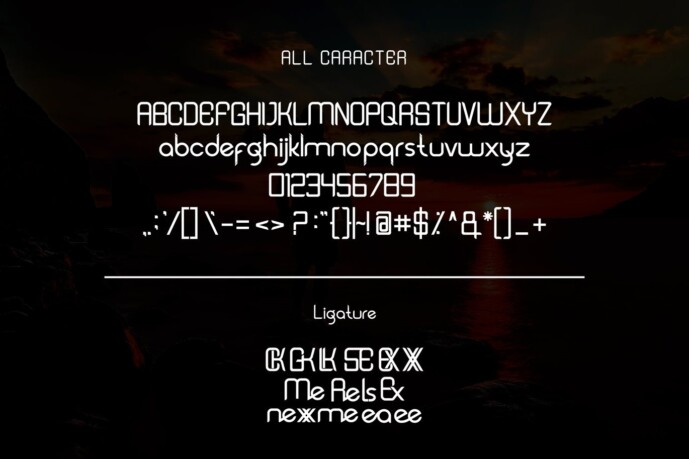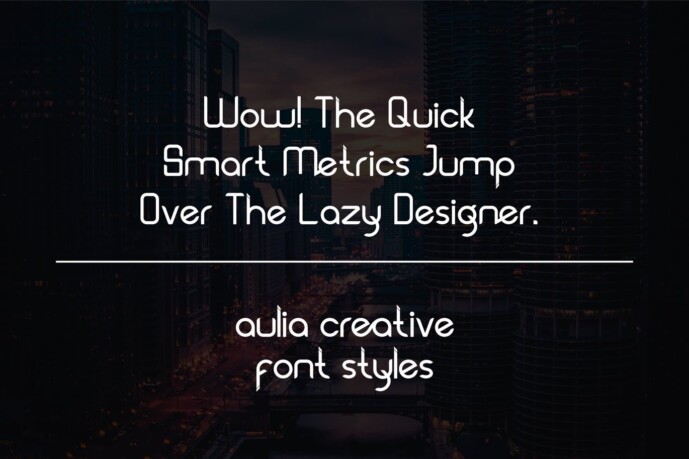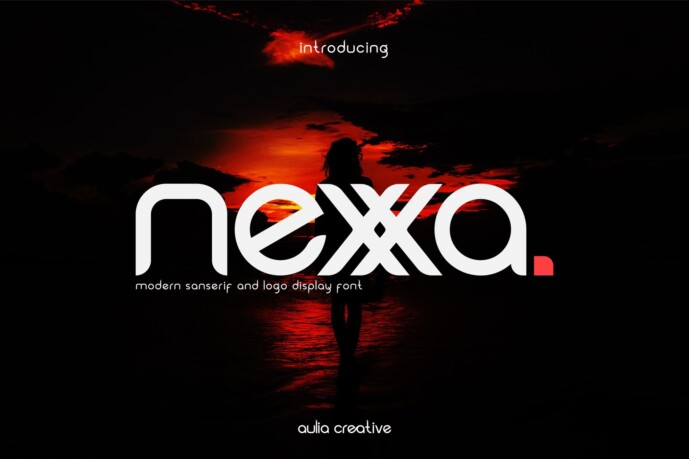
Nexxa Font
Nexxa Font – Modern Display & Logo Font and Authentic Display Font.  Perfectly fit for branding, logo, wedding things, greeting cards, fashion, lookbook, marketing promotion, anytime you want to look fancy elegant but still casual.